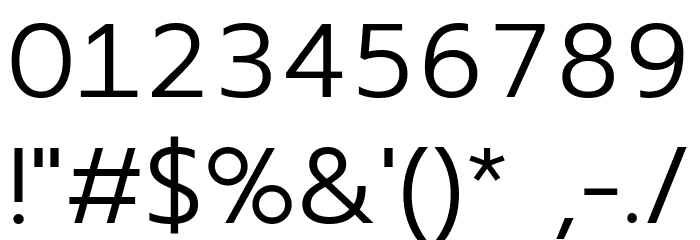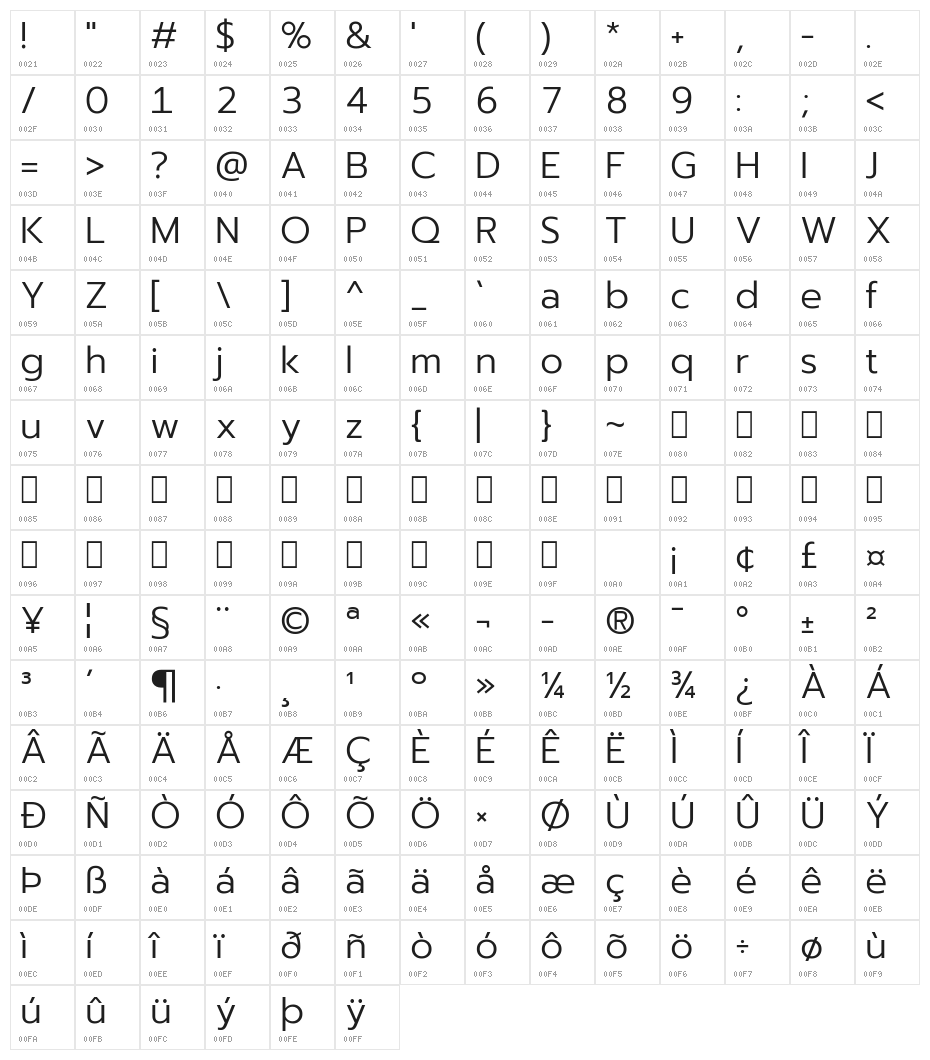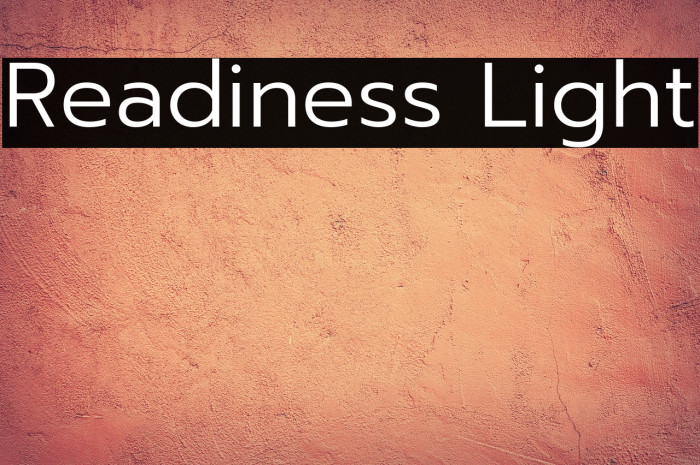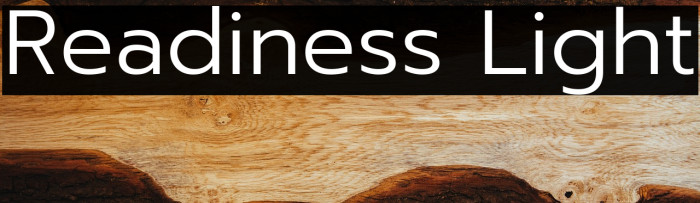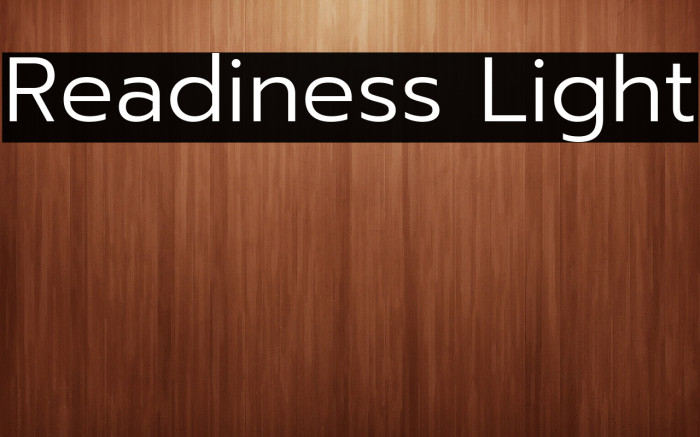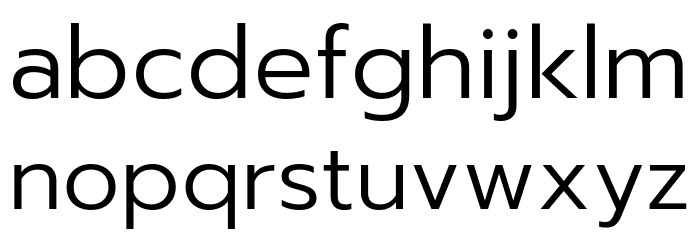
Readiness Light Font
Readiness Light Description
This font features a clean and modern sans-serif design, characterized by its geometric shapes and uniform stroke widths. The letters are well-proportioned, offering a harmonious balance between curves and straight lines. It has a minimalist aesthetic, making it highly legible and versatile for various applications. The numerals and special characters maintain the same clarity and simplicity, ensuring consistency across all text elements. Its straightforward design makes it suitable for both digital and print media, providing a professional and contemporary look.